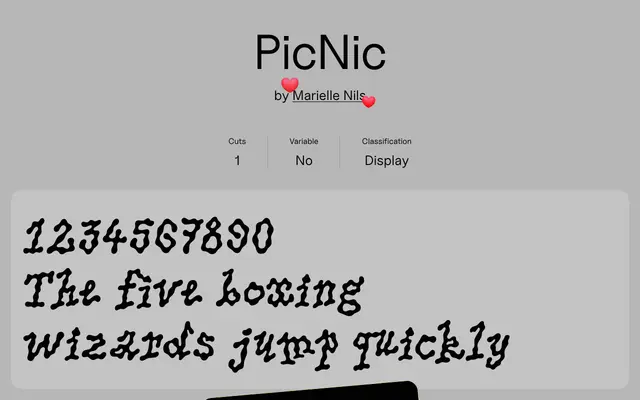
PicNic
Designed by Marielle Nils, PicNic is a display typeface released as a single cut with no variable axis. It is free to use in both personal and commercial projects under the SIL Open Font License 1.1, which permits modification and redistribution with conditions. The limited information available points to a decorative personality suited to headlines and expressive graphic work.
The foundry classifies it as Display, and the irregular, expressive character of the name suggests a decorative or novelty typeface outside standard text categories.